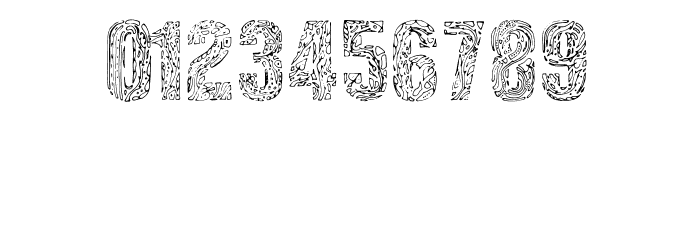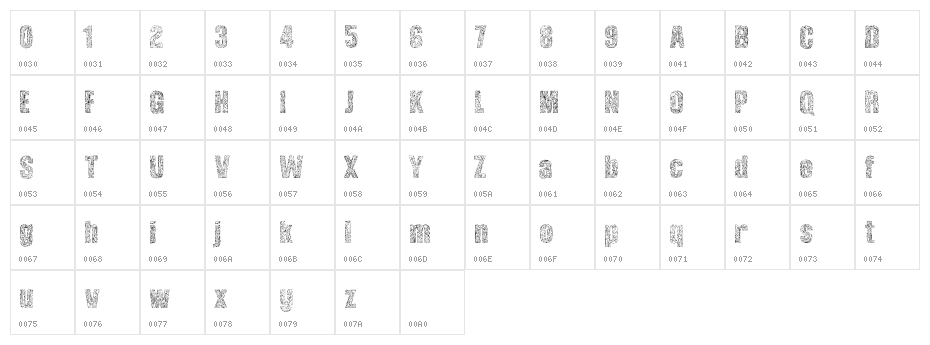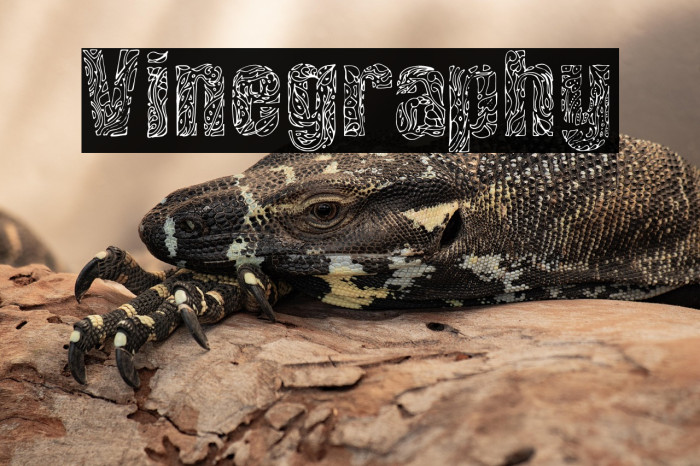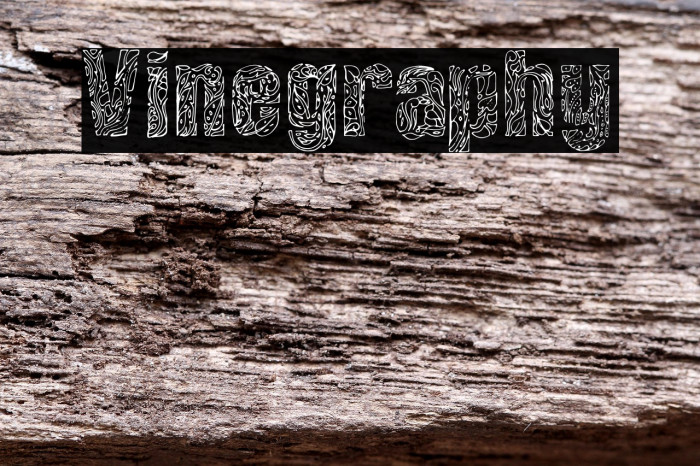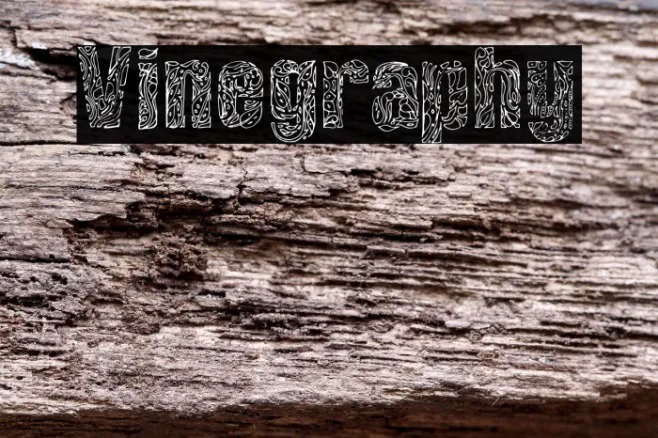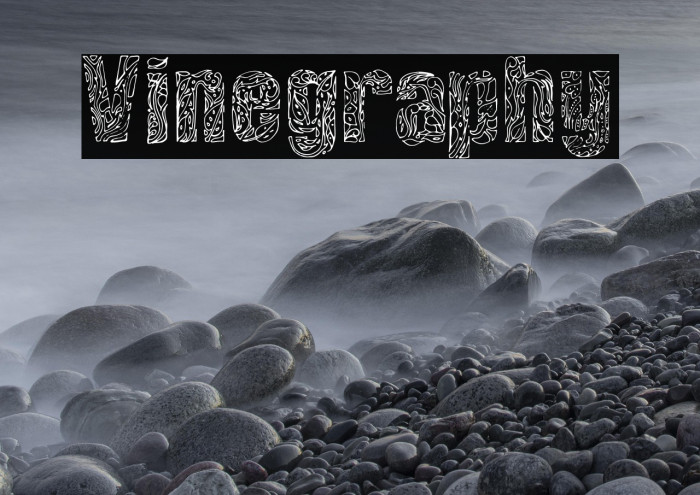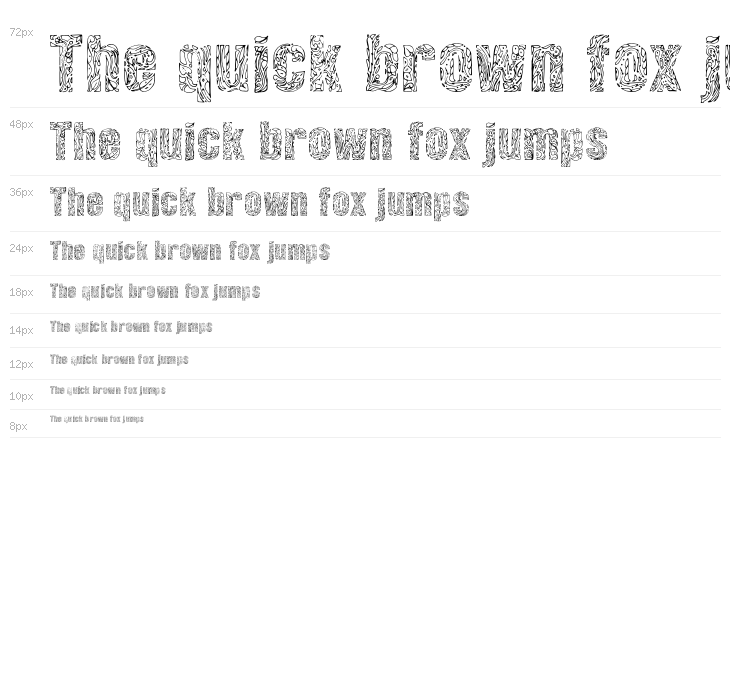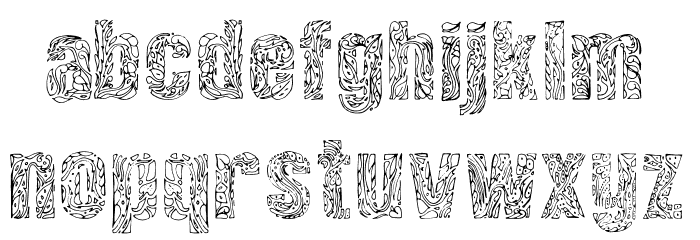
Vinegraphy Font
Vinegraphy Description
This font features an intricate and decorative design, with each character adorned with vine-like patterns that weave through the letters. The uppercase and lowercase letters, as well as the numbers, maintain a consistent style, creating a cohesive look. The detailed embellishments give the font a unique and artistic appearance, making it stand out in any design. The characters are bold and have a substantial presence, which is enhanced by the elaborate internal patterns. This font is ideal for projects that require a touch of elegance and creativity, such as invitations, posters, or branding materials.
| Proposed Projects | Ideal for invitations, posters, branding, and artistic projects requiring a decorative touch. |